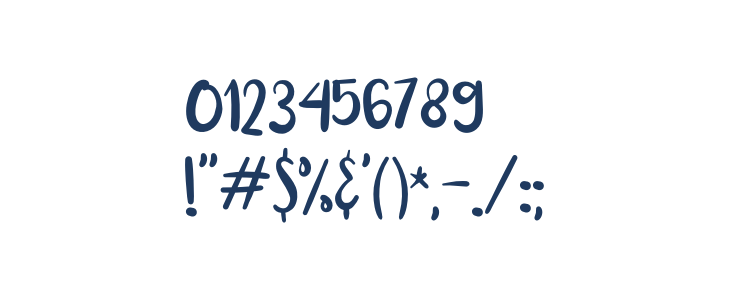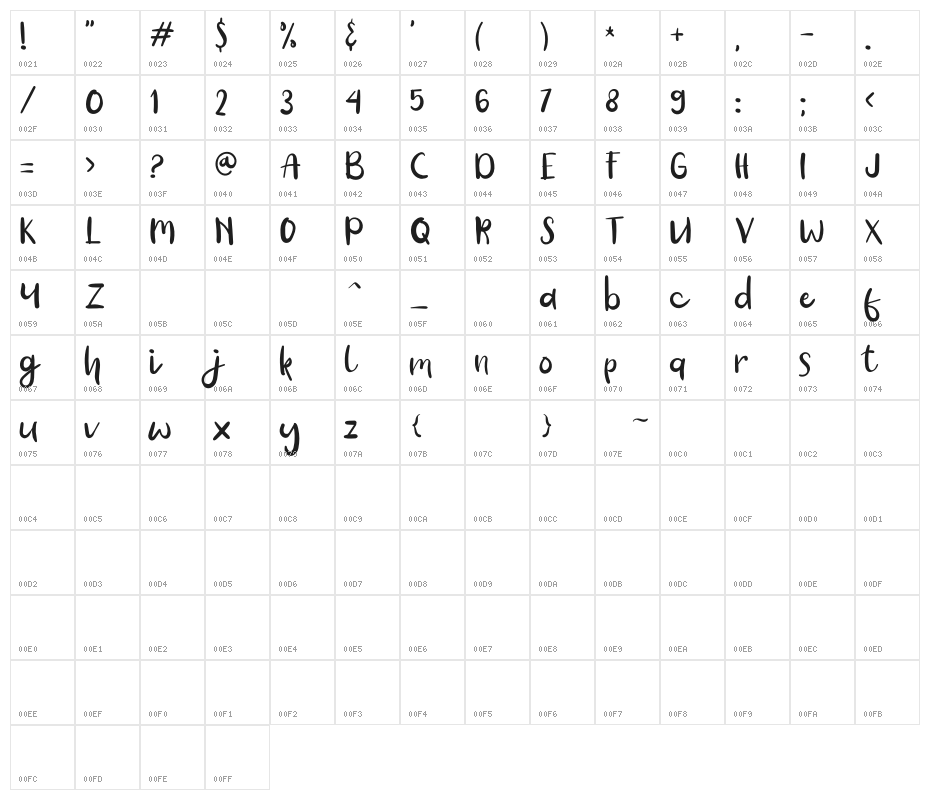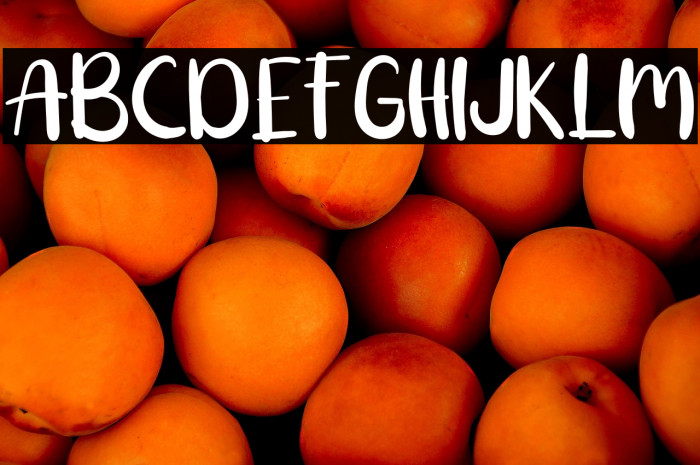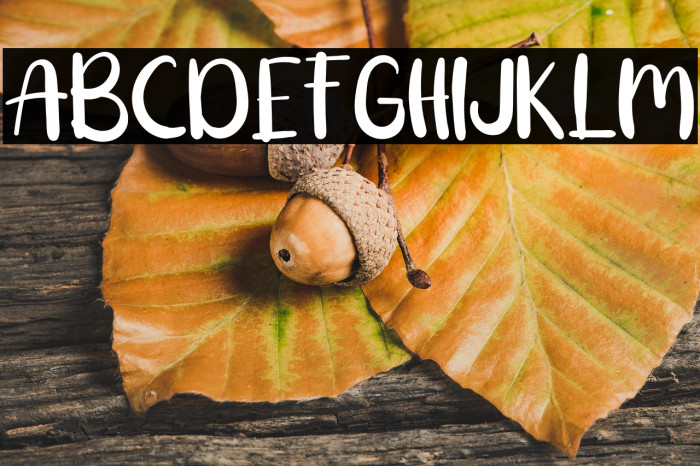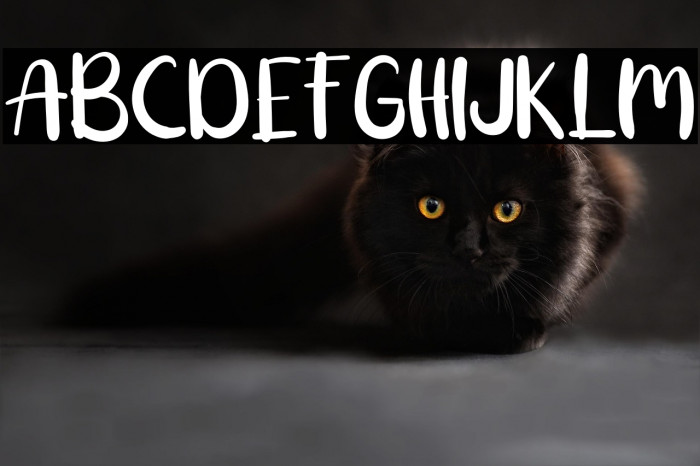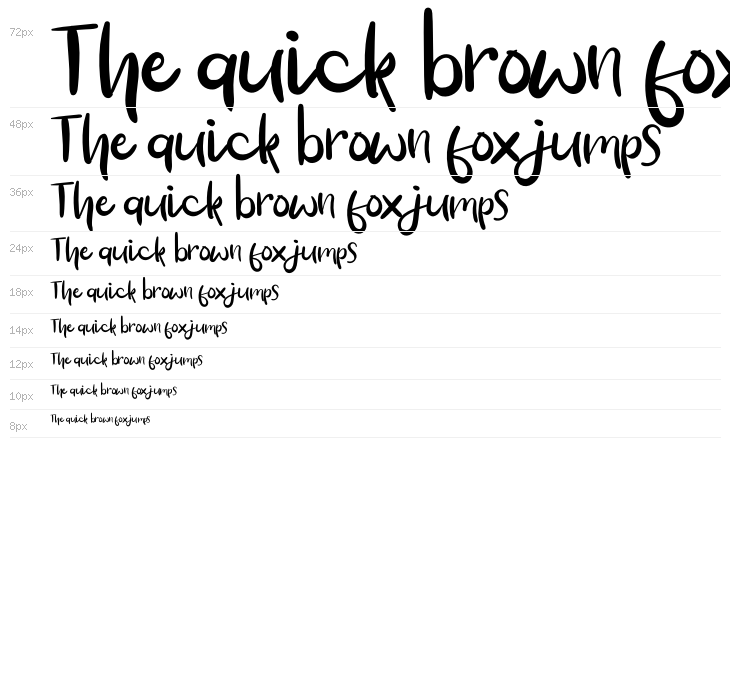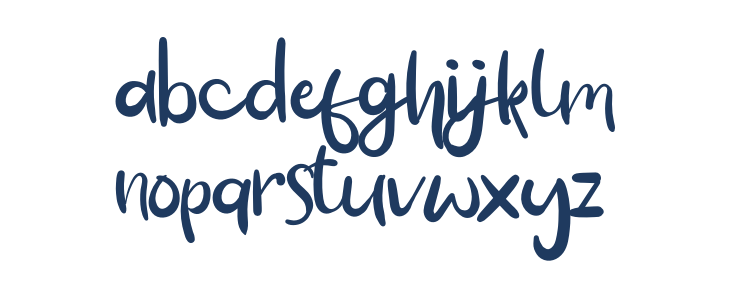
Ballete Font
Ballete Description
This font features a playful and casual handwritten style, characterized by its smooth, flowing curves and slightly irregular letterforms. The uppercase and lowercase letters maintain a consistent rhythm, giving it an approachable and friendly appearance. The numerals and special characters are crafted with the same whimsical touch, ensuring a cohesive look across all elements. The strokes are moderately thick, providing good readability while maintaining a lively aesthetic. This font is ideal for projects that require a personal and informal touch, such as invitations, greeting cards, or playful branding.